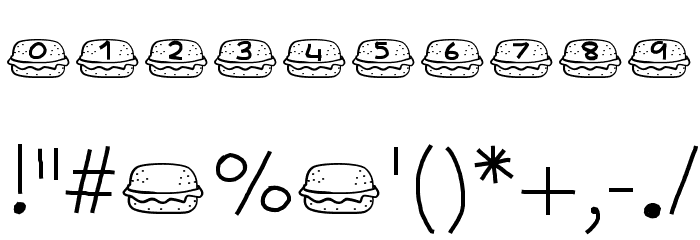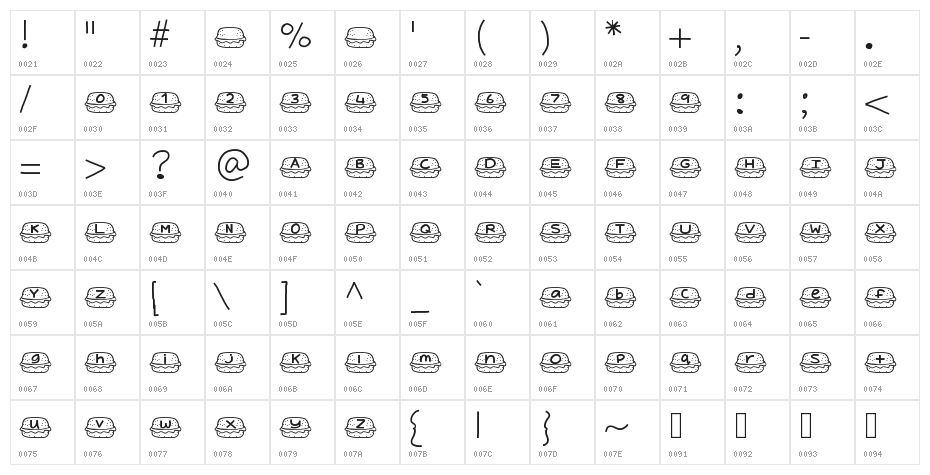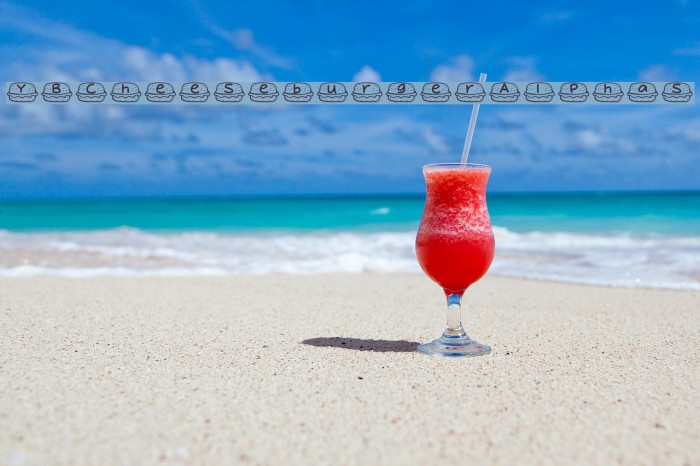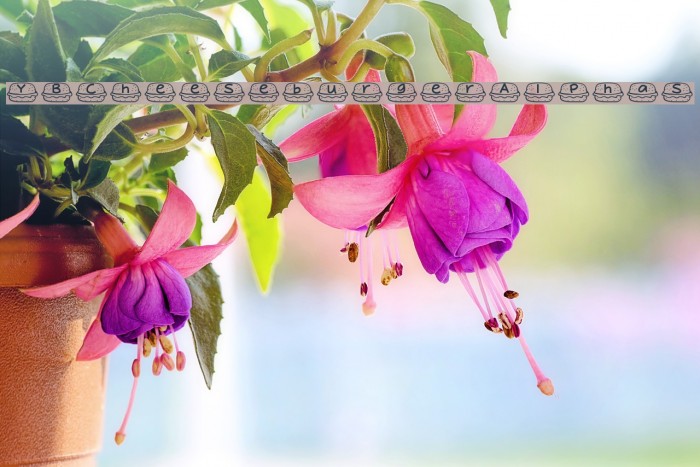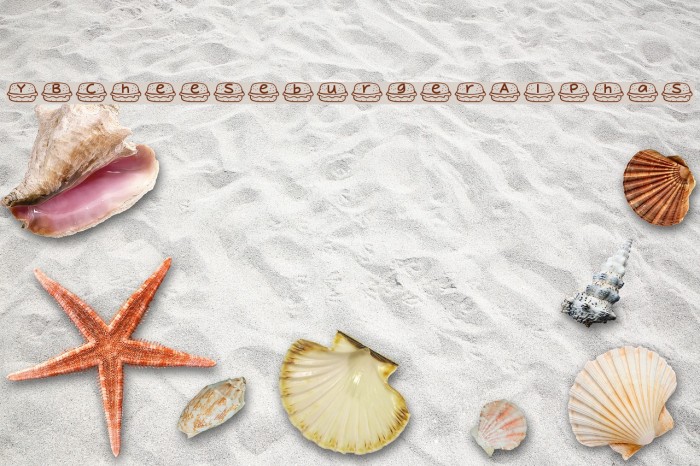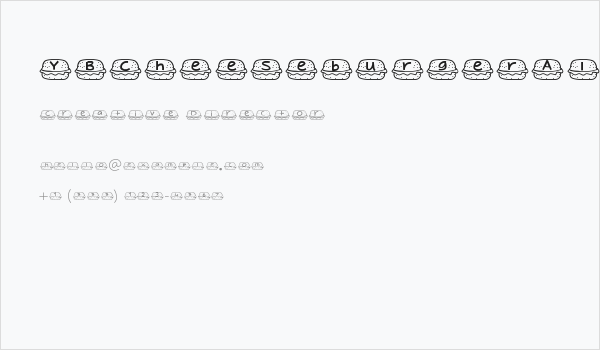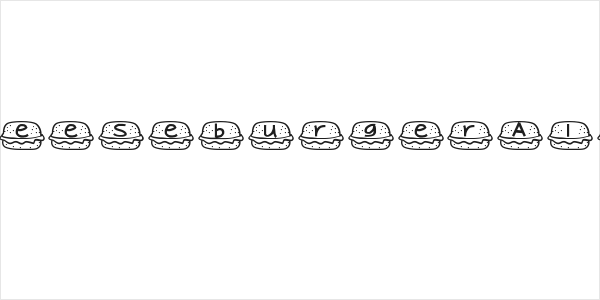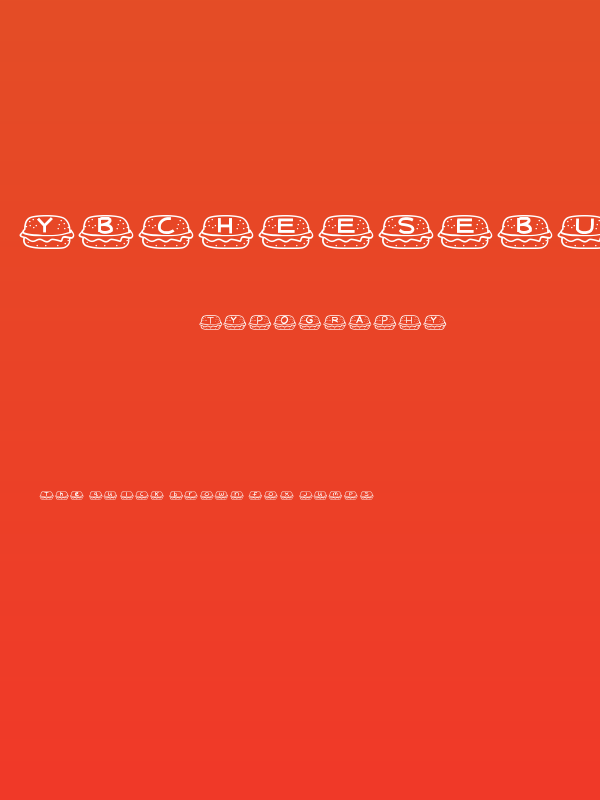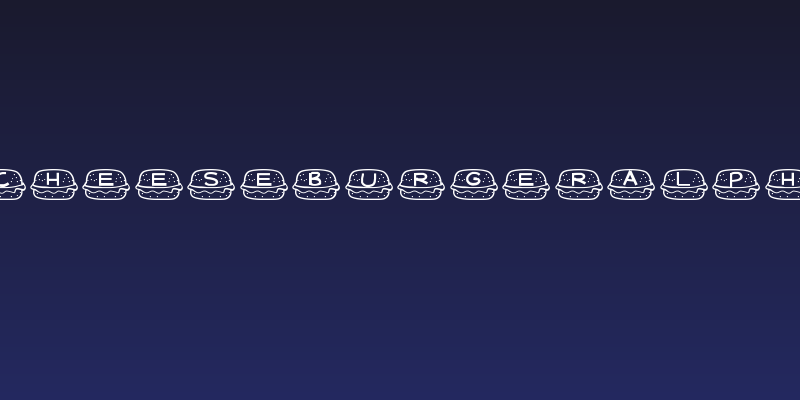
YBCheeseburgerAlphas Font
YBCheeseburgerAlphas Description
This playful and whimsical font features each character nestled within a cheeseburger design, creating a fun and unique visual experience. The letters and numbers are bold and clear, making them easily readable despite the decorative elements. The font is perfect for projects that require a lighthearted and humorous touch, such as children's books, food-related branding, or playful event invitations. The consistent design across all characters ensures a cohesive look, while the cheeseburger motif adds a distinctive flair.
| Overall Style | Whimsical |
| Use Case | Headlines, Logos, Novelty items |
| Proposed Projects | Children's books, food branding, playful invitations, novelty items. |